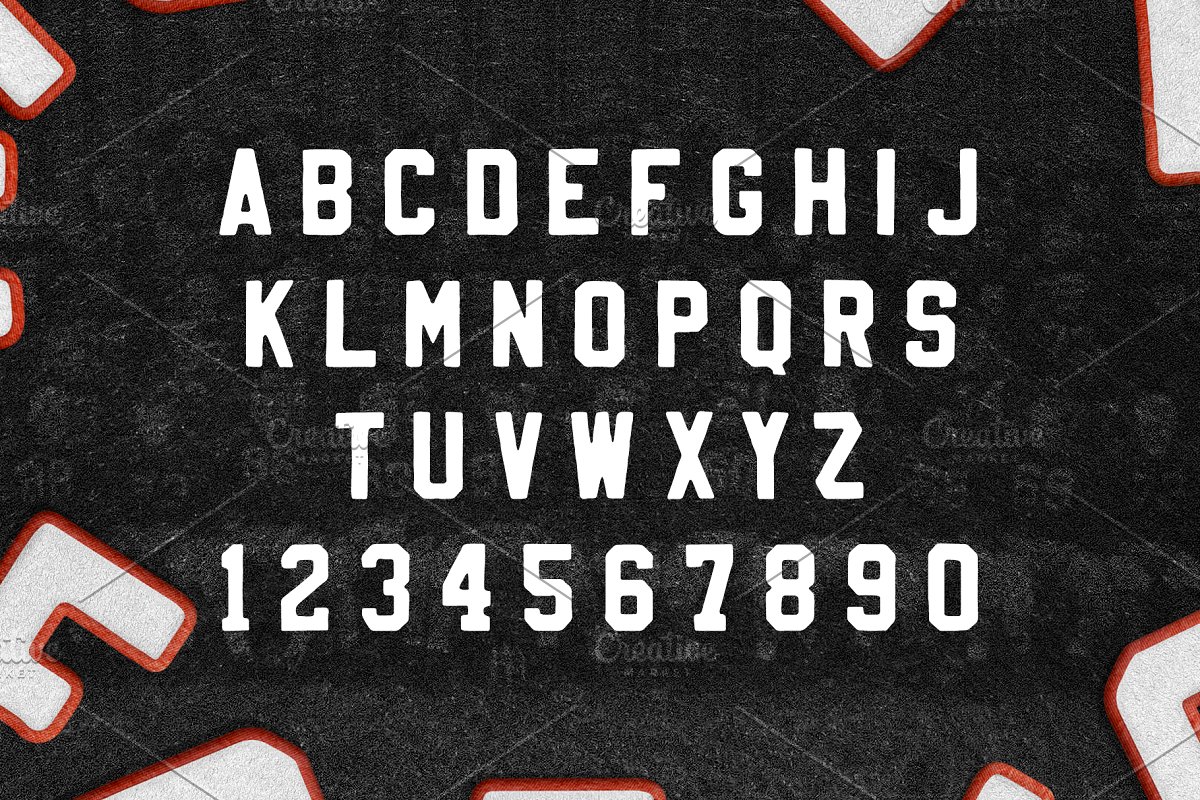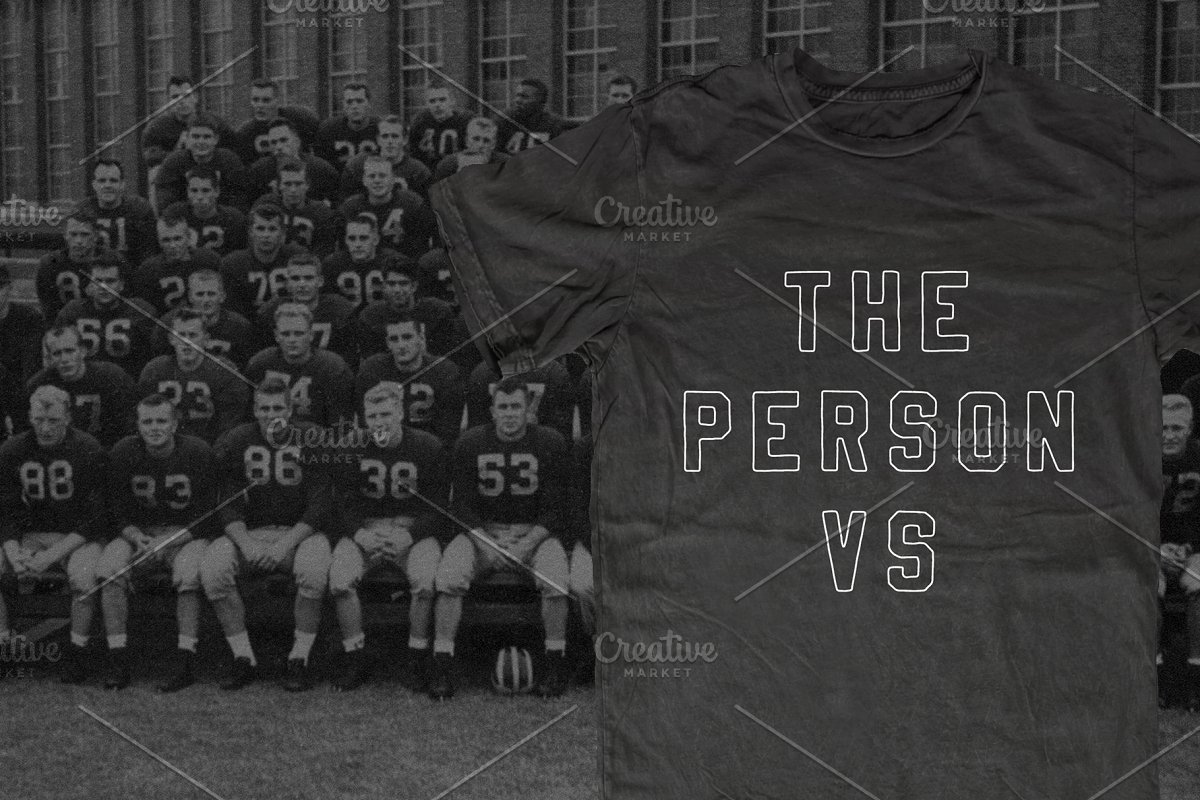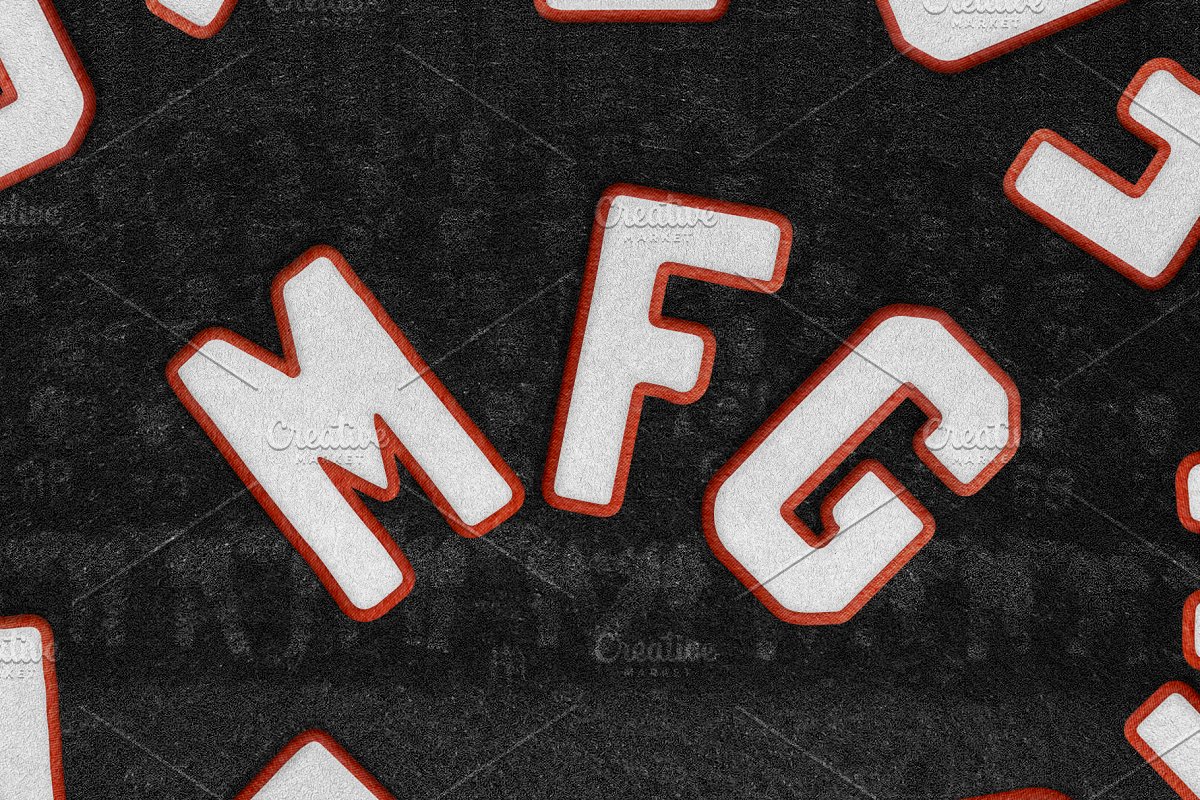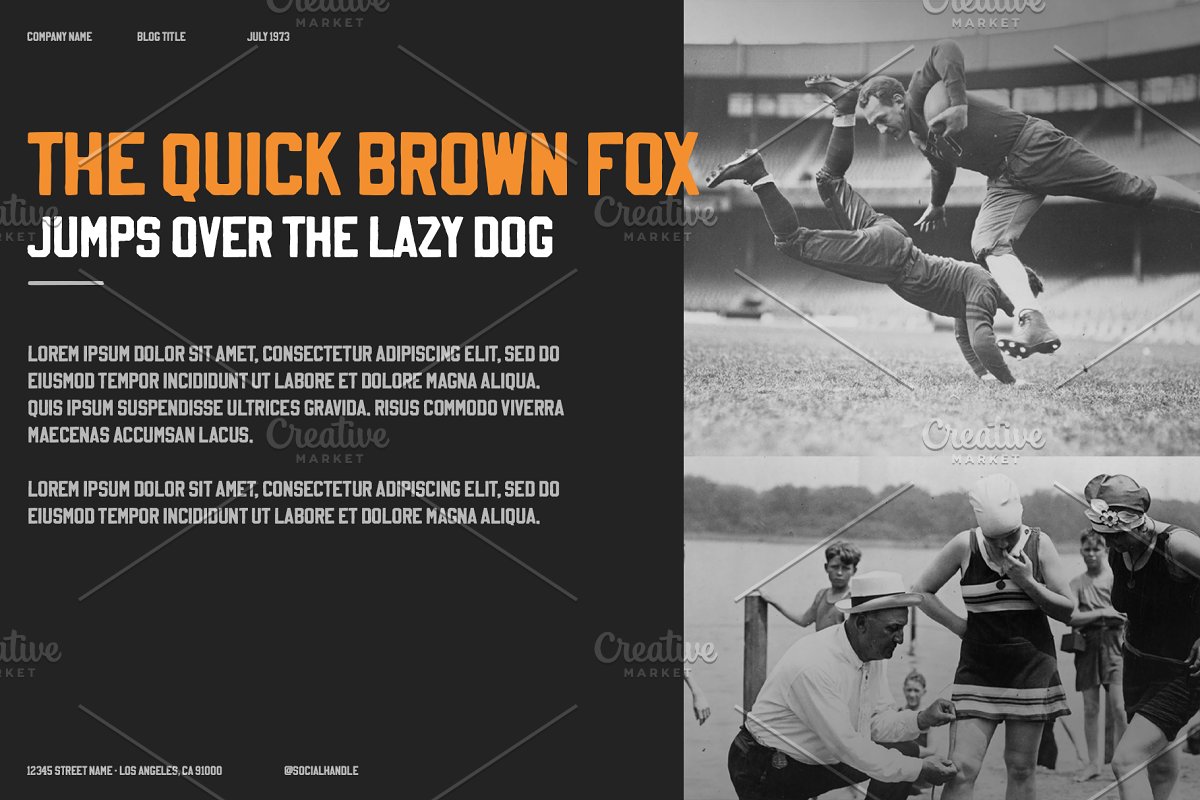
About the Vintage Varsity Font
Vintage Varsity was inspired by that classic iron-on letterman jacket your cool uncle wore in high school (and lets be real, probably still wears today), , , Pair with some fuzzy felt textures and you got yourself a killer duo!Strike the fill, throw a stroke on it, and design a retro-slogan t-shirt, Is this starting to sound like a cheesy infomercial? What-evs, I’m rolling with it